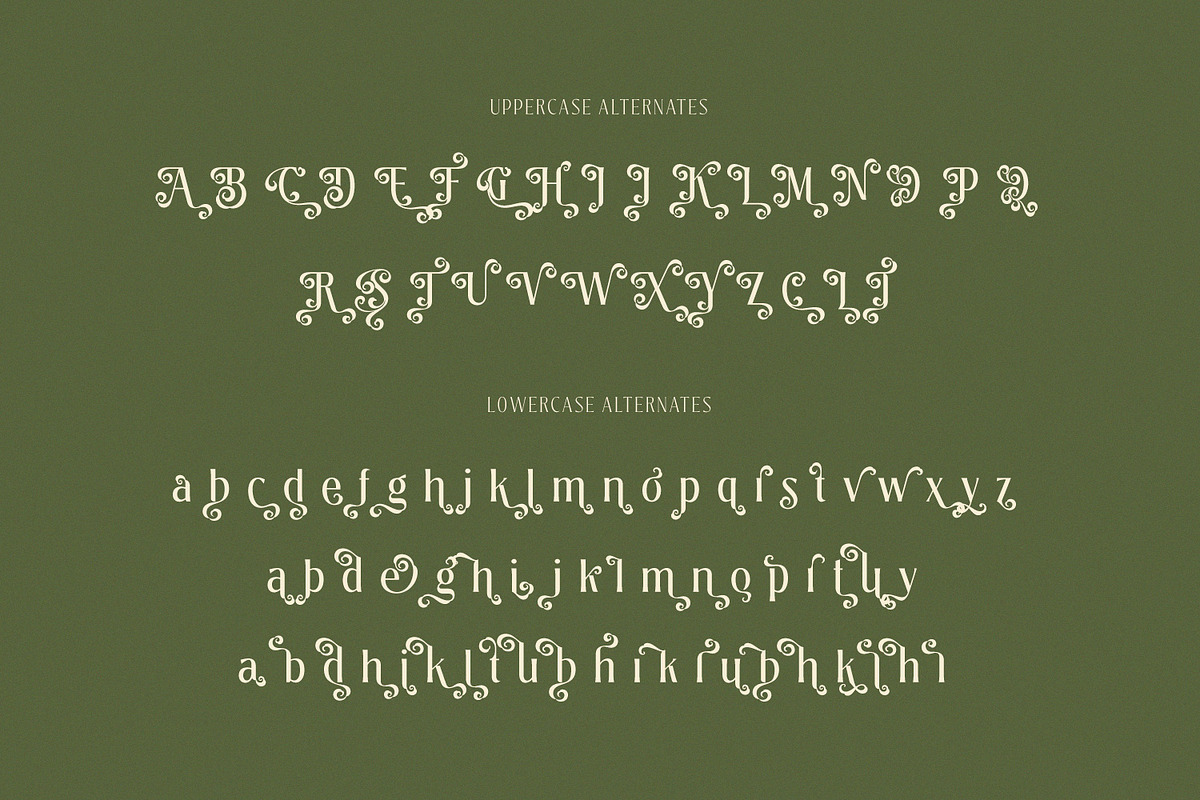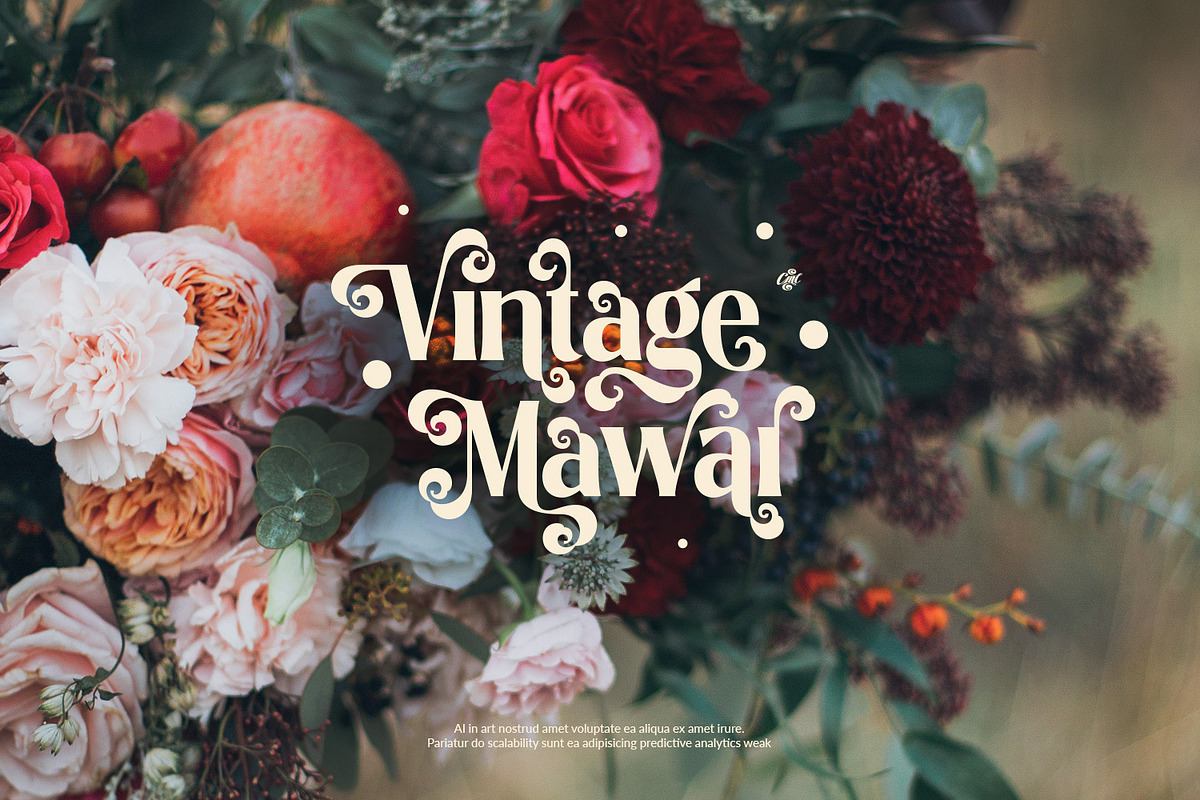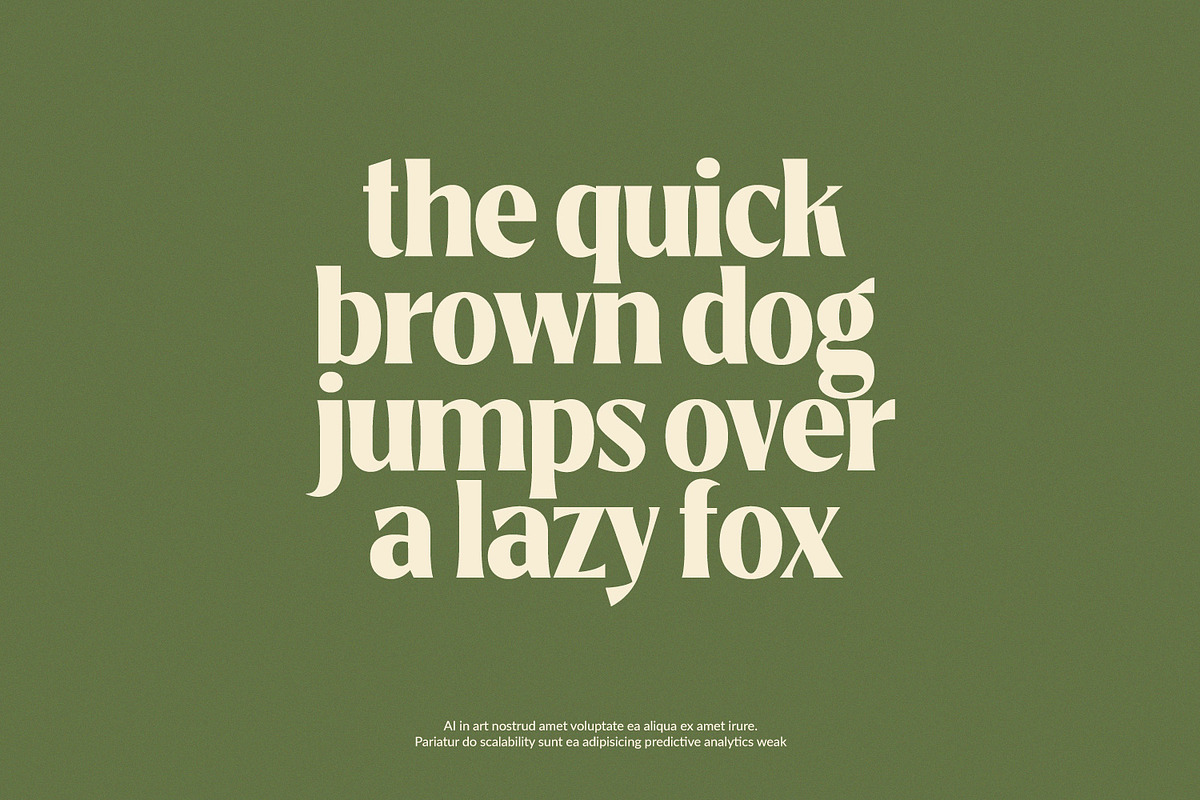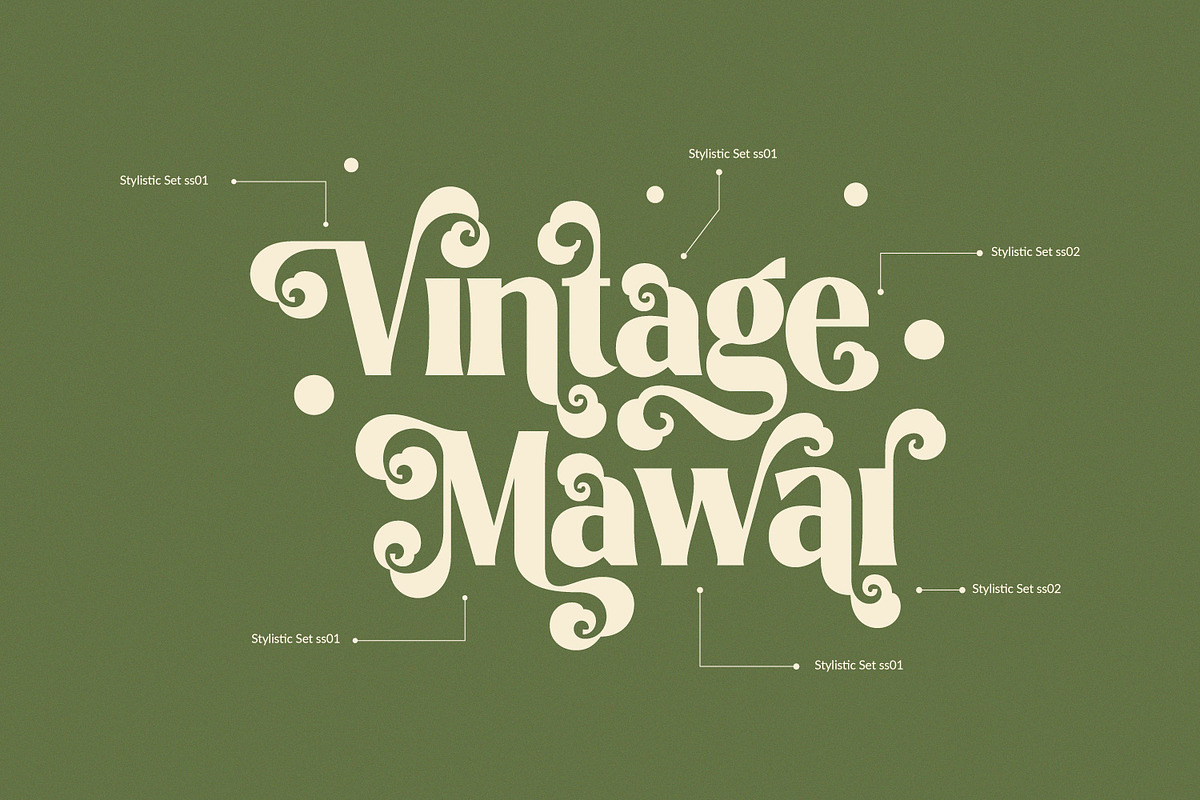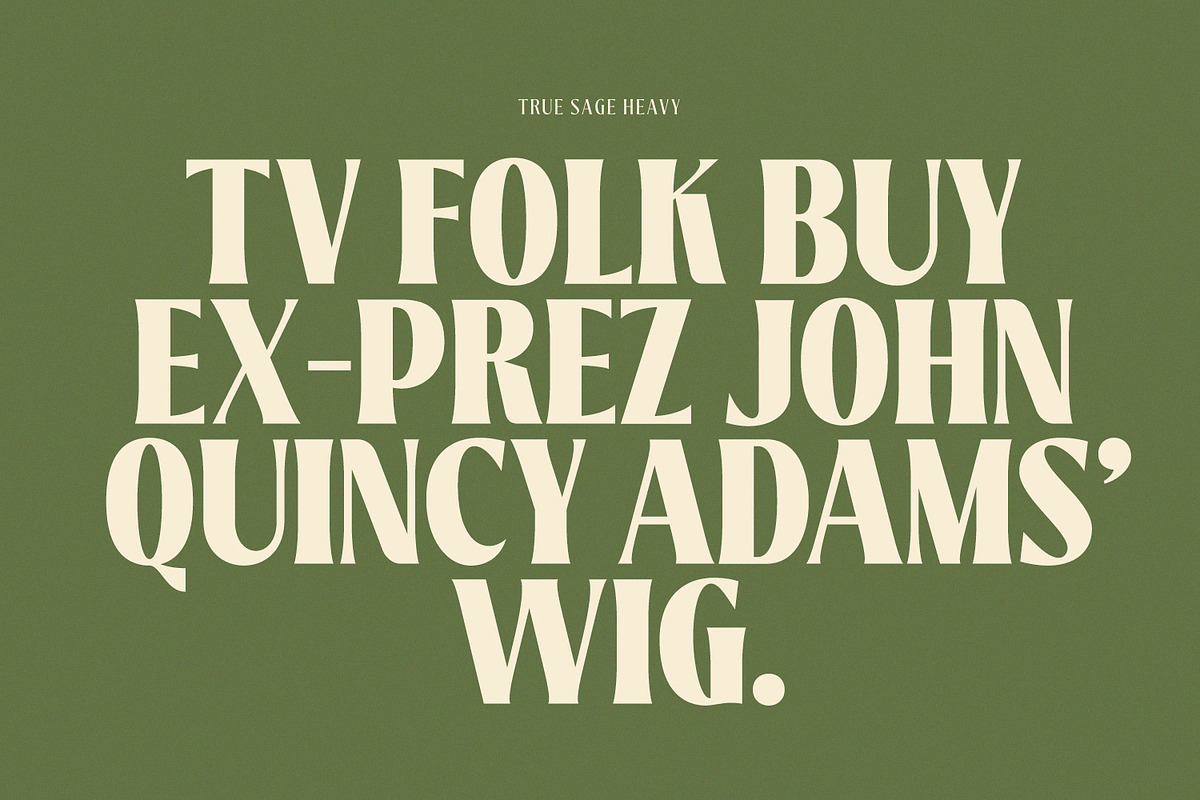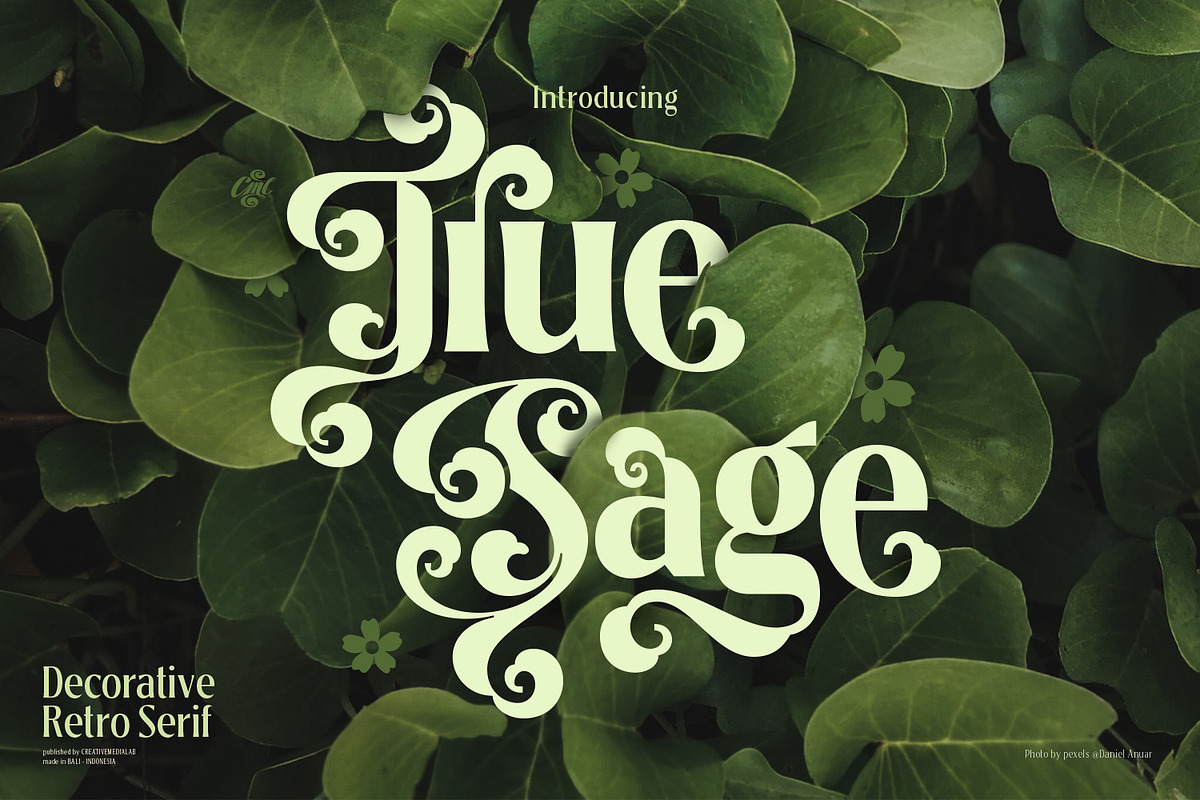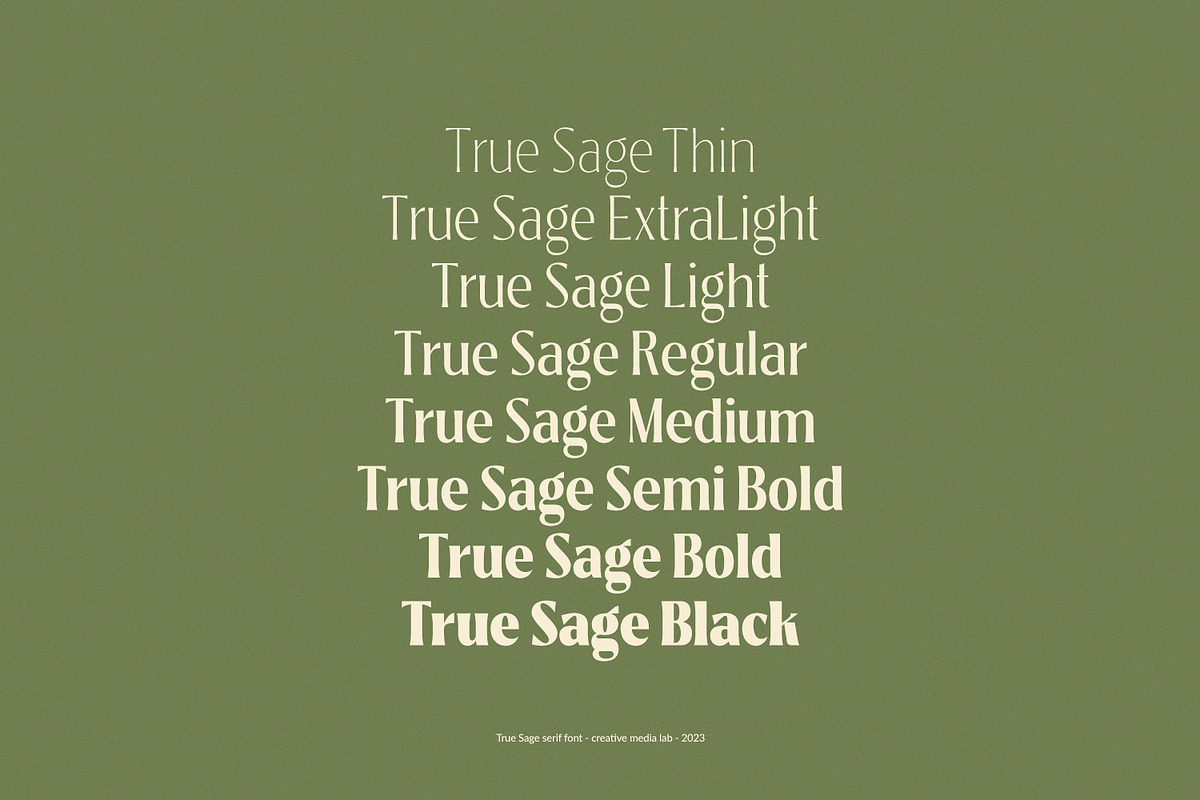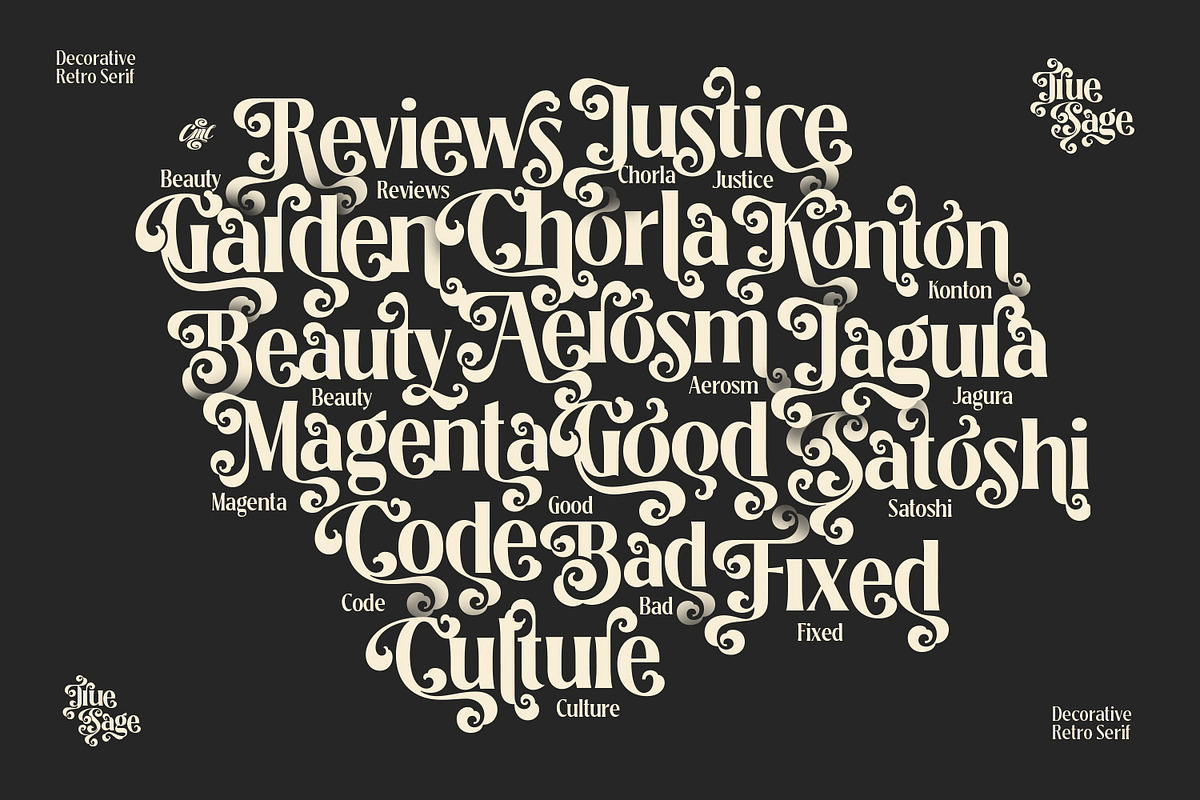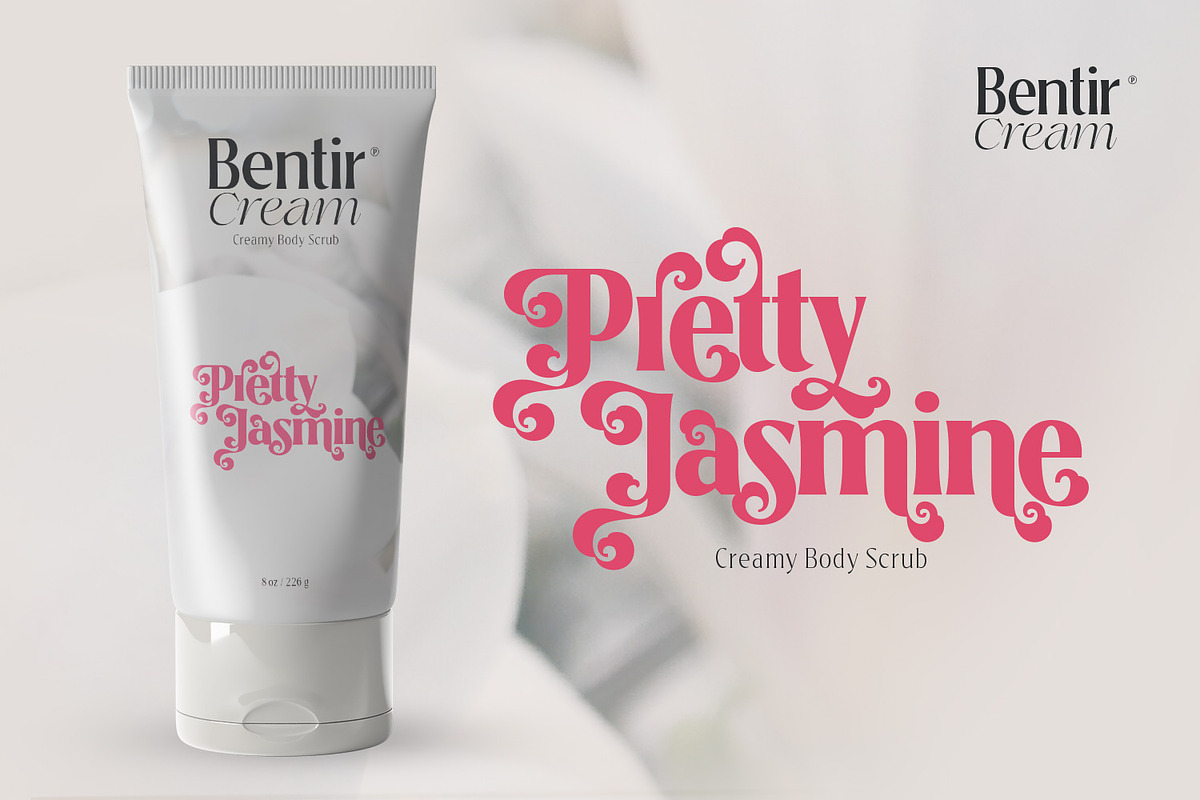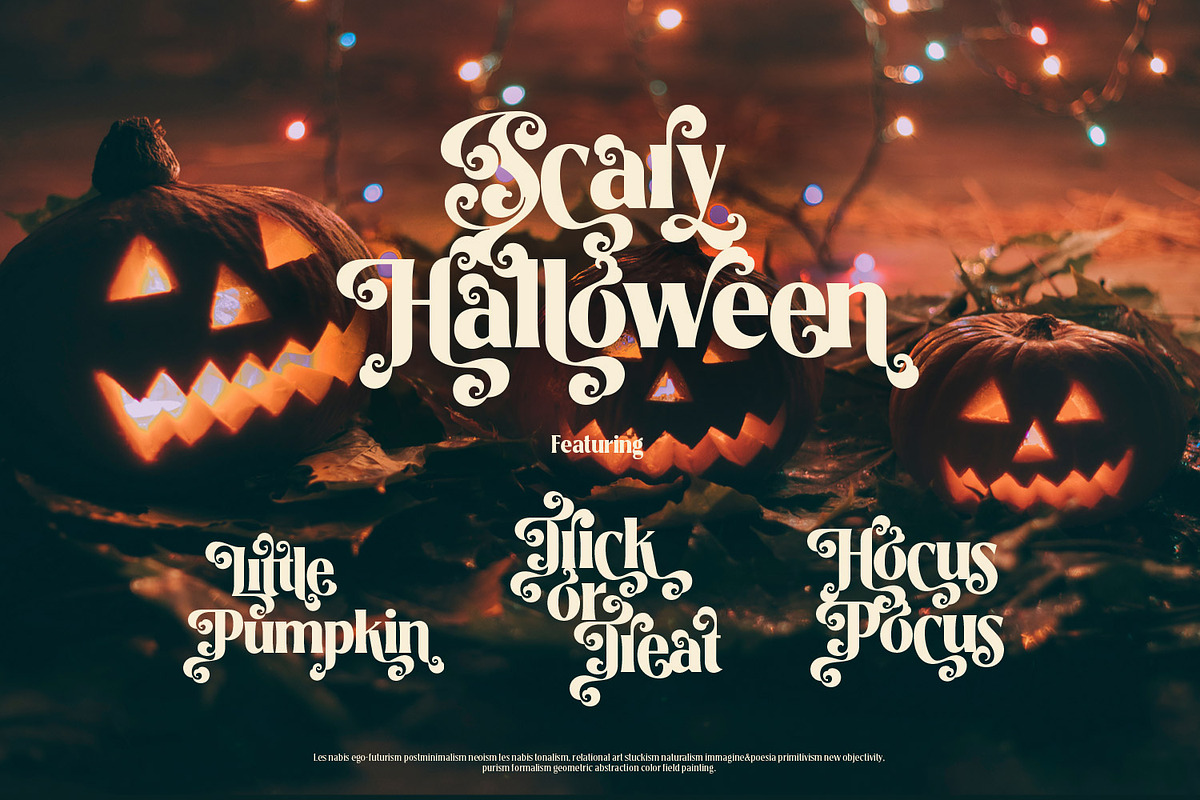
True Sage - Decorative Serif Family
True Sage is a pretty decorative serif family. Contains Eight weights from thin to black and variable format. Vintage retro style dressed with pretty swirly alternates makes the lettering look pretty and unique, perfect for your heading, title, or branding projects.